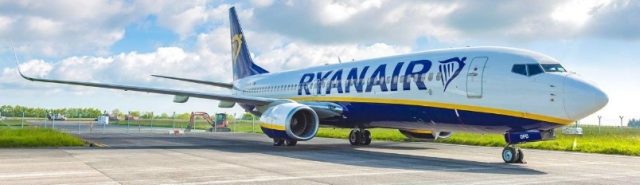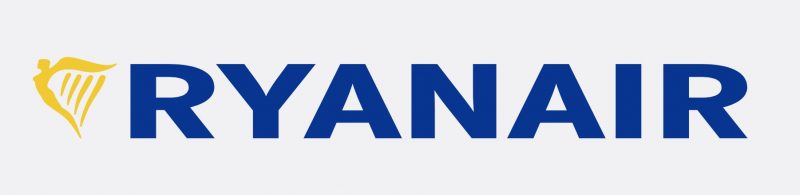
Activity Feed › Forums › Sign Making Discussions › File Swapping › Ryanair font Tagged: font, ryanair, vector File Swapping Ryanair font Posted by Fran Hollywood on February 25, 2009 at 6:33 pm Does anybody recognise the Ryanair font? Tried what the font and it only suggested square end fonts. It’s on brands of the world, but I want to type in different text. TIA Neil Speirs replied 16 years, 4 months ago 1 Member · 1 Reply fontryanairvector 1 Reply Neil Speirs Member February 25, 2009 at 6:42 pm Close enough, Fran? Log In to Reply Log in to reply. Public All Members My Connections Only Me PublicAll MembersMy ConnectionsOnly Me Public All Members My Connections Only Me Log In to Reply Start of Discussion 0 of 0 replies June 2018 Now